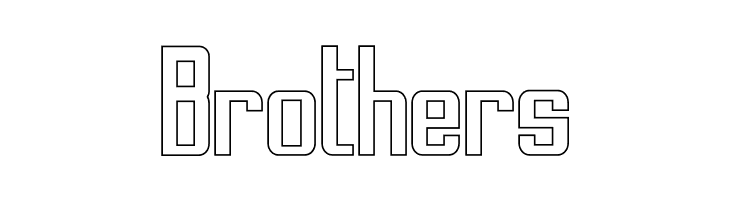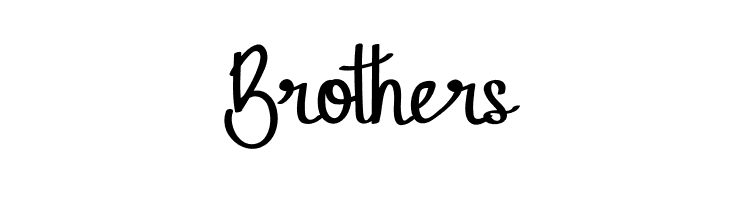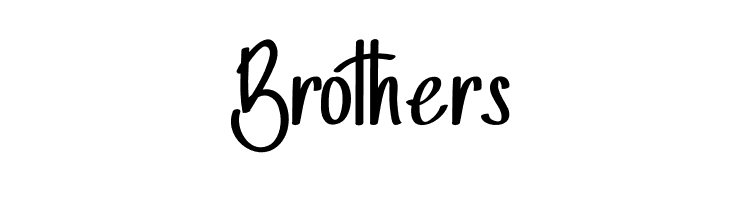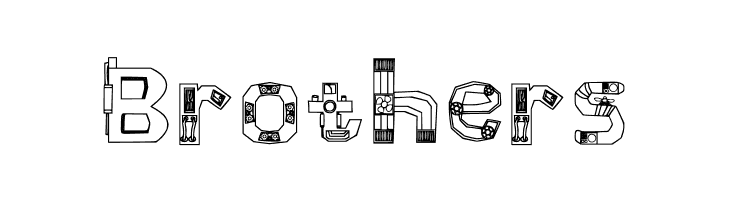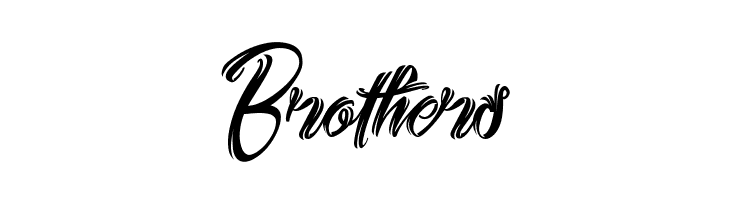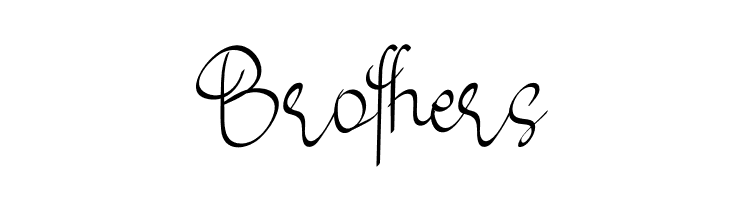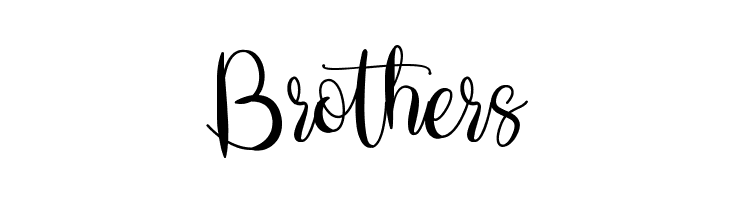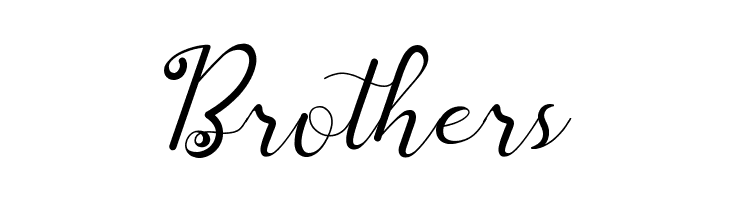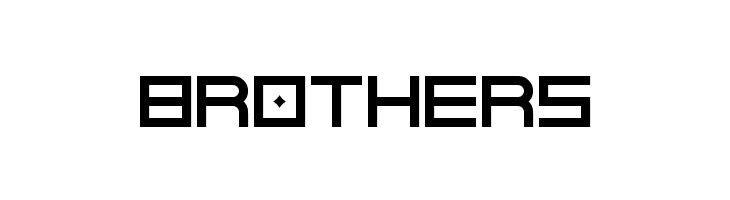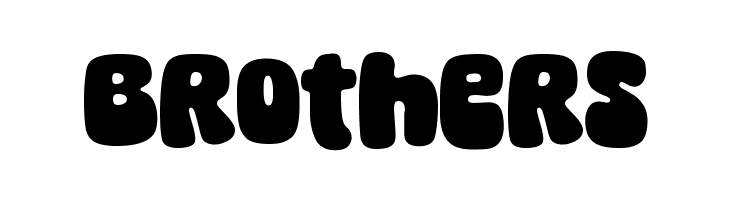
A bold, energetic script font with dynamic strokes and a lively, expressive style.
A flowing cursive font with elegant, connected letters.
A playful, casual handwritten font with dynamic strokes and whimsical flair.
A playful, casual handwritten font with smooth, rounded edges.
A playful, whimsical script font with flowing, cursive letterforms and moderate contrast.
A casual, handwritten font with a playful and friendly style.
A bold, futuristic font with sharp angles and a dynamic slant.
A futuristic, angular font with a dynamic slant and bold presence.
A playful, spaghetti-inspired decorative font with a hand-drawn look.
A playful and whimsical font with rounded, smooth letterforms and consistent stroke width.
A bold, modern serif font with sharp serifs and high contrast.
A futuristic, geometric font with rounded edges and uniform strokes.
A bold, angular font with a left-leaning, dynamic style, ideal for energetic designs.
A bold, angular font with a dynamic, speedy appearance.
A geometric serif font with angular serifs and a modern-retro aesthetic.
A bold, playful font with vintage-inspired rounded and angular elements.
A geometric and decorative font with rounded serifs and consistent stroke width.
A bold, retro-inspired font with rounded characters and a playful serif touch.
A playful, hand-drawn style font with rounded, irregular letterforms.
A playful and bold script font with a hand-drawn, whimsical style.
A playful, hand-drawn style font with bold, irregular strokes.
A whimsical and elegant font with flowing curves and decorative elements.
A bold, hand-painted style font with rough, textured edges and dynamic strokes.
A modern-vintage font with elongated strokes and playful curves.
A bold, futuristic font with sharp angles and geometric shapes.
A bold, spooky font with sharp edges and a playful, eerie style.
Tall, quirky sans-serif with playful, spooky character.
A whimsical, spooky font with distorted, playful characters.
A bold, spooky font with a dripping effect, ideal for Halloween themes.
A bold, brush-style font with a rugged and textured appearance.